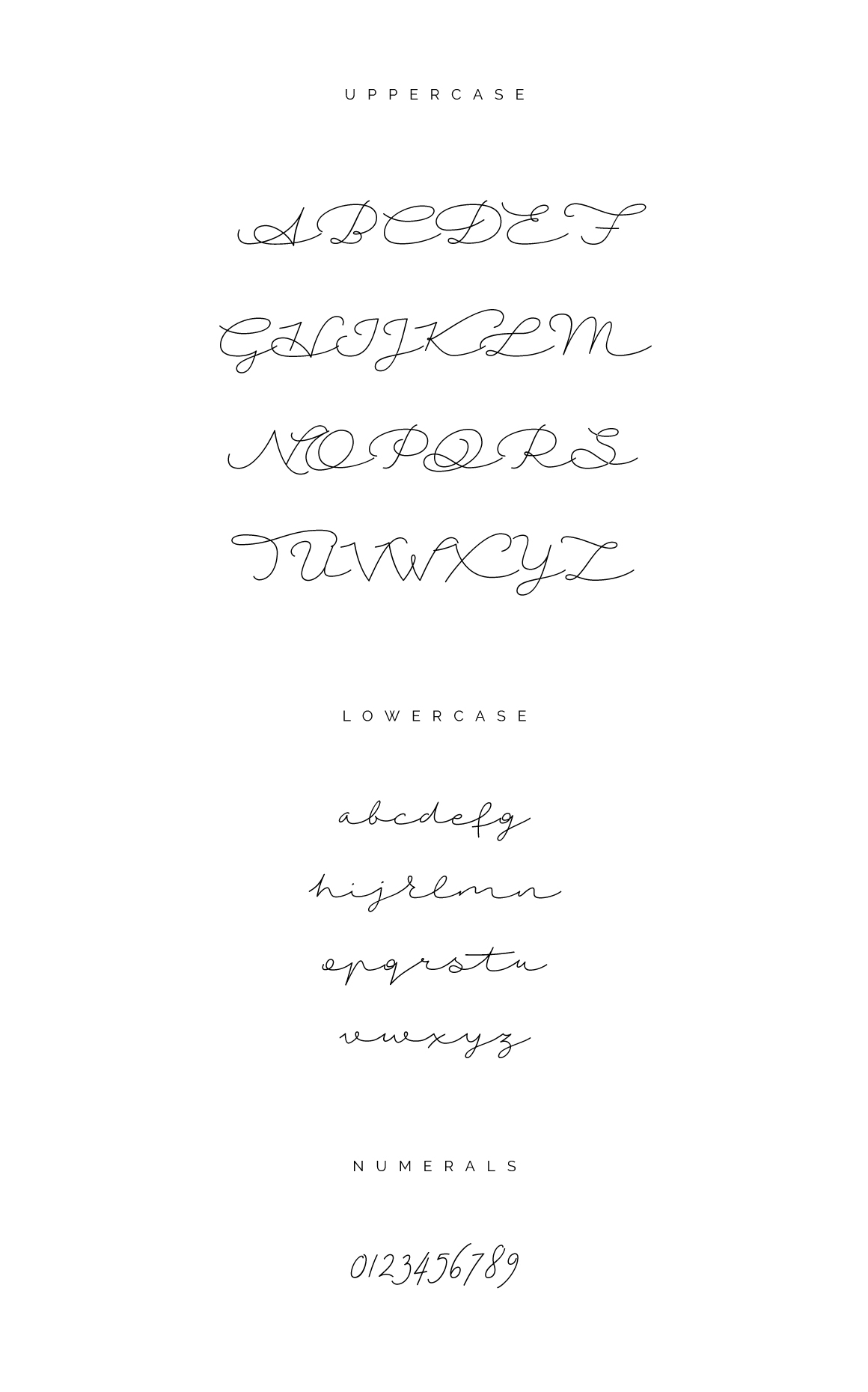
Autumn Chant is a handwritten, casual monoline script by Roland Huse. Perfect for titles, headings and logotypes for blogs, products and lifestyle imagery (like quotes and stuff). Mats-Peter Forss has made these previews to showcase how you can perfectly smash any upcoming brand, advertisement or quote with this amazing script font!
Autumn Chant by Roland Huse